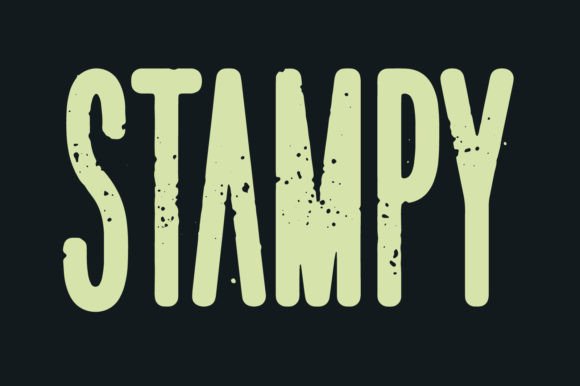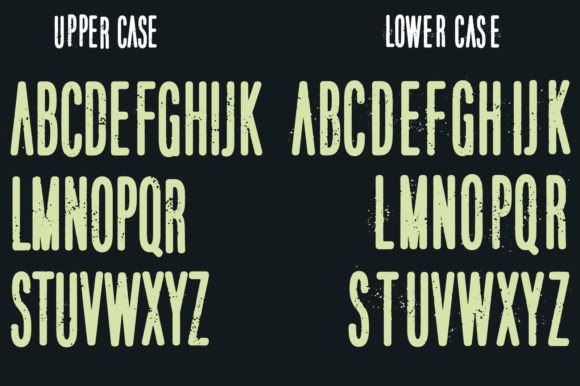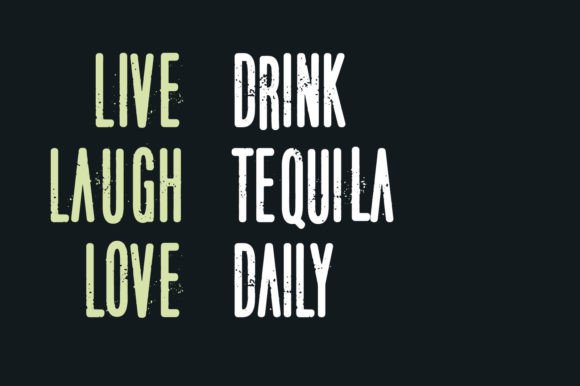
Stampy Font
About the Stampy Font
Introducing the Stampy Font, a beautifully crafted typeface designed to elevate your creative projects. Stampy is an authentic distressed rounded sans serif font that features two sets of characters for an authentic distressed look. Featuring automatic ligatures for consecutive letters.